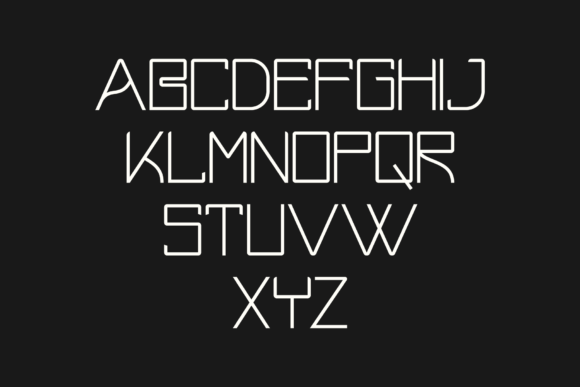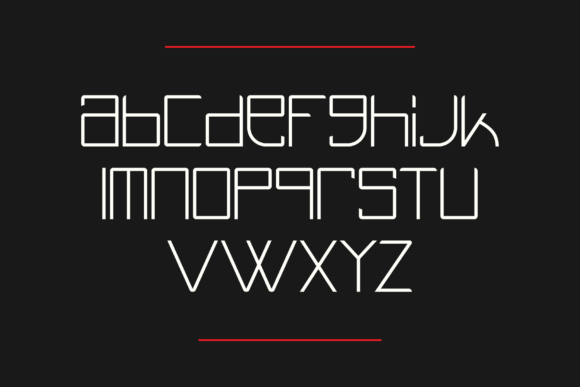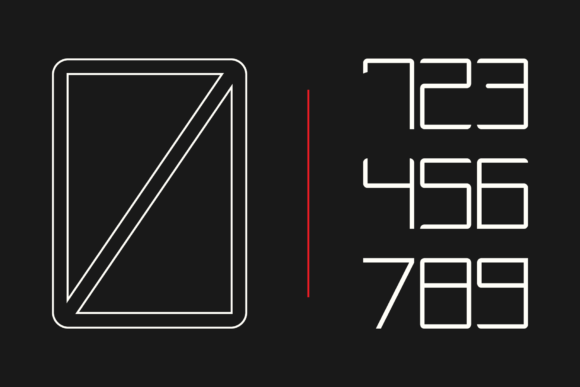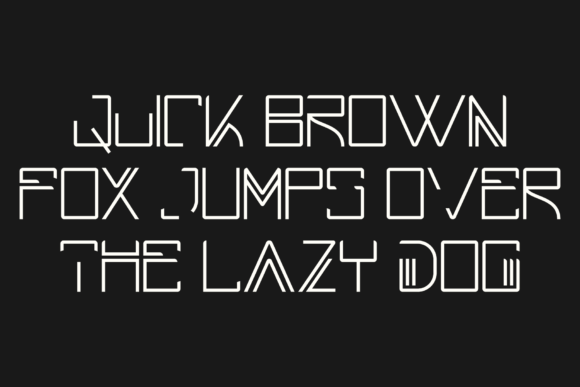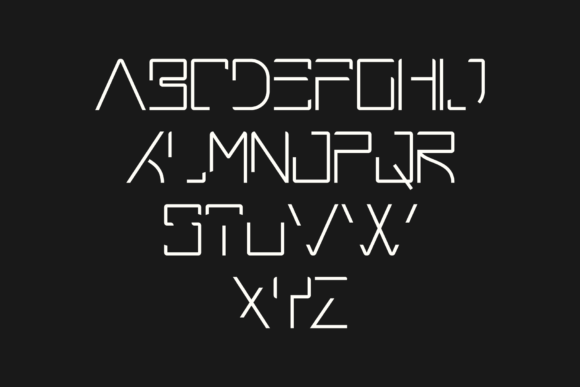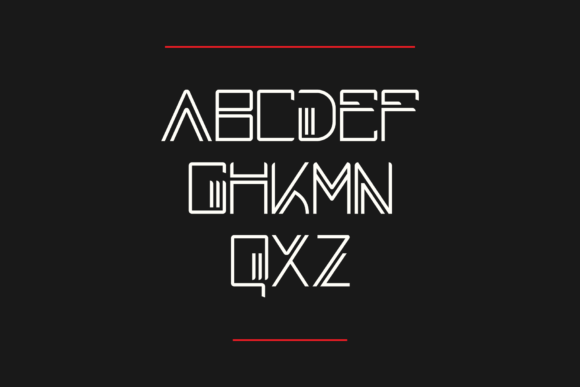
Introduction to Beckson Font
Beckson is a futuristic unique sans serif typeface, which comes with creative alternative letters.
Beckson is designed with minimalist distinctive shapes that make it very eye catching Beckson is a fantastic typeface for modern and futuristic designs, you can use it for a wide range of projects.
Key Features of Beckson Font